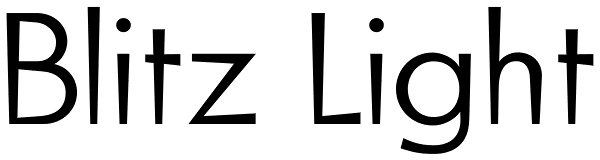
Blitz
A very glitzy Blitz! I always wanted to design a typeface that was top heavy, but I never knew how not to make it look like Antique Olive, until recently -- I had an idea. My new family is very readable despite it beeing top heavy, thin on the low...